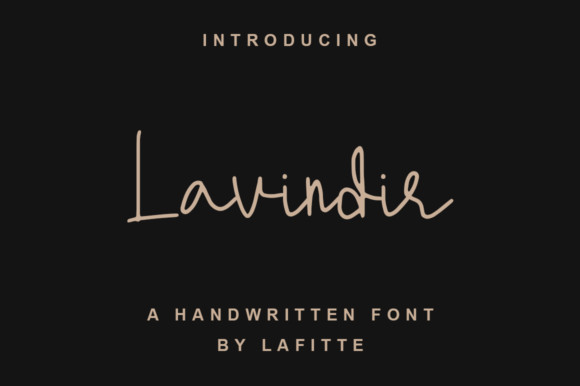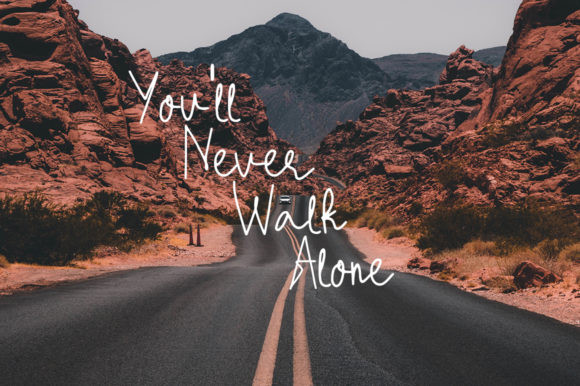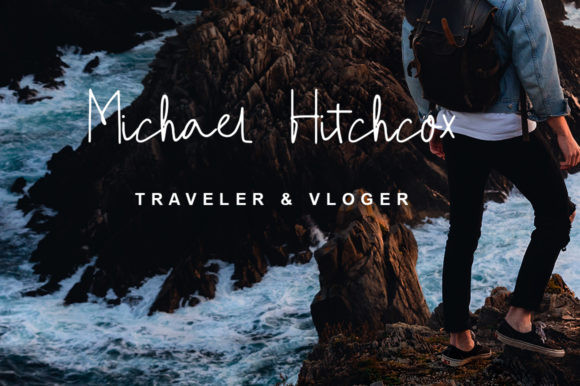
Lavindir Font
Lavindir is a modern and dainty handwritten font. Its natural and unique style makes it incredibly fitting to a large pool of designs. The only limit is your imagination!